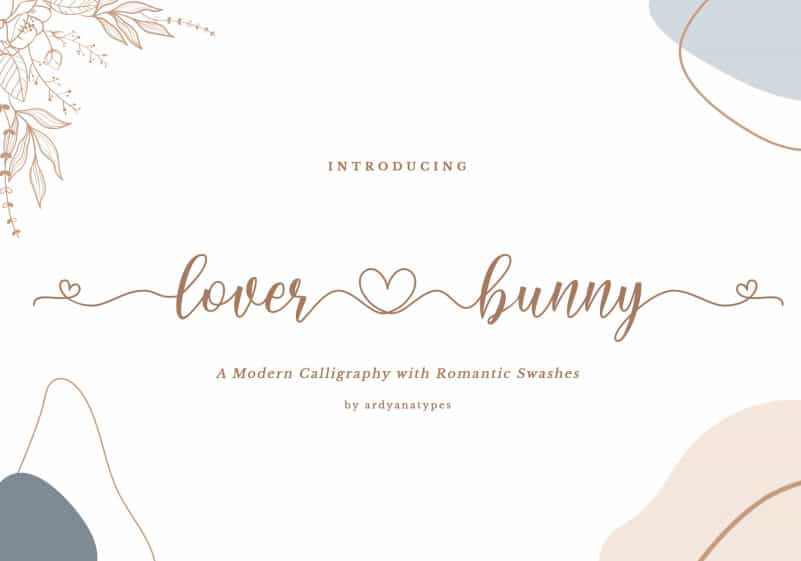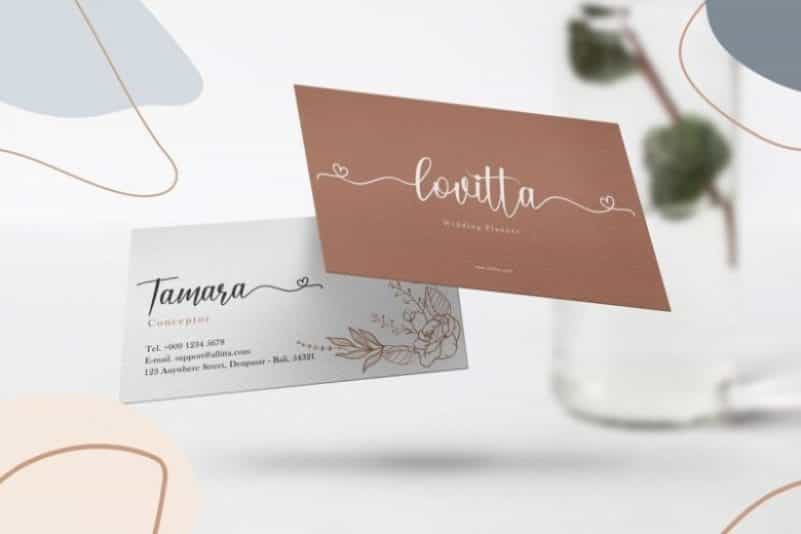
Lover Bunny is a script font with a special charm. New model of calligraphy is now in Lover Bunny, it is perfect for use in a variety of designs: postcards from scratch, signatures on paintings or graphics, logos, quotes and album covers, business cards, product designs and many other design undertakings.